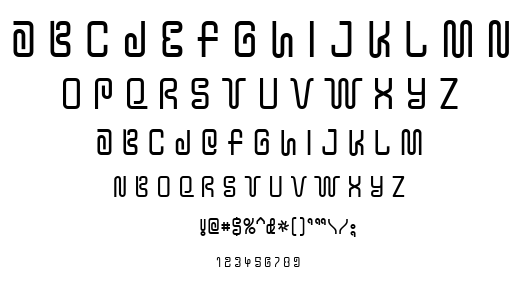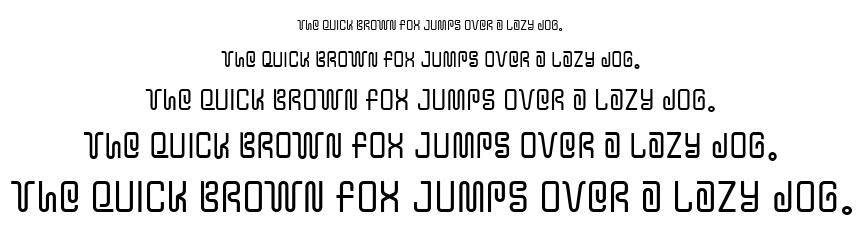
Y2Kbug is a wormular techno font which evokes feeling of designer jeans, carrots and corrugated cardboard. Use with caution. Don’t forget to read the files inside the zip for details. Updated in 2012.